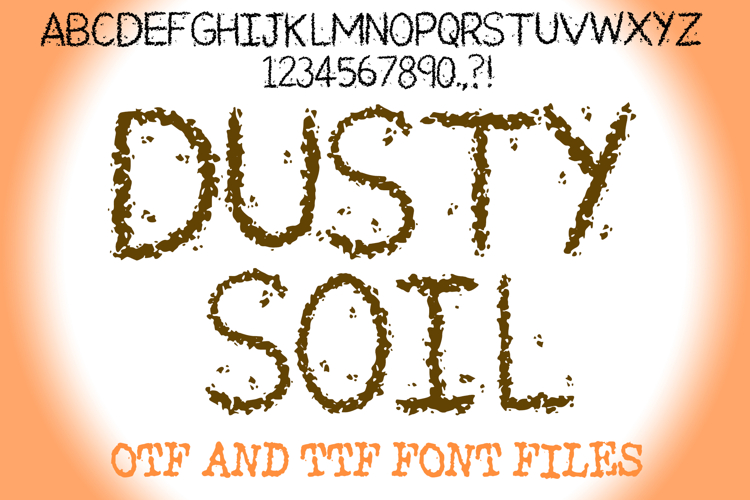
Dusty Soil Alphabet Lettering ABC Text Muddy Font OTF
A unique muddy style font where you can create your own words and colour them to your vision!
Contains OTF and TTF file. Capital letters , . ? ! and numbers only.